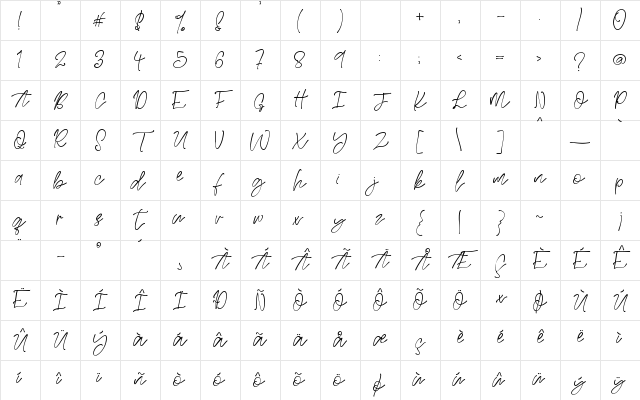
Bright Glow Regular Free Font
Bright Glow Regular
Design Context for Bright Glow
Bright Glow is a composed and adaptable typeface that performs quietly and consistently across a wide range of design contexts.